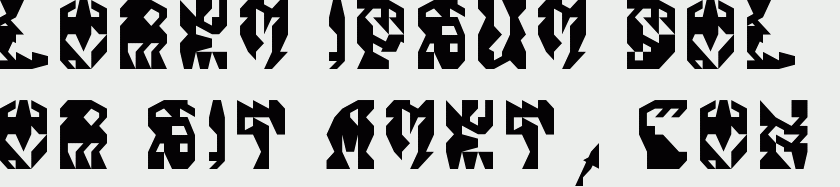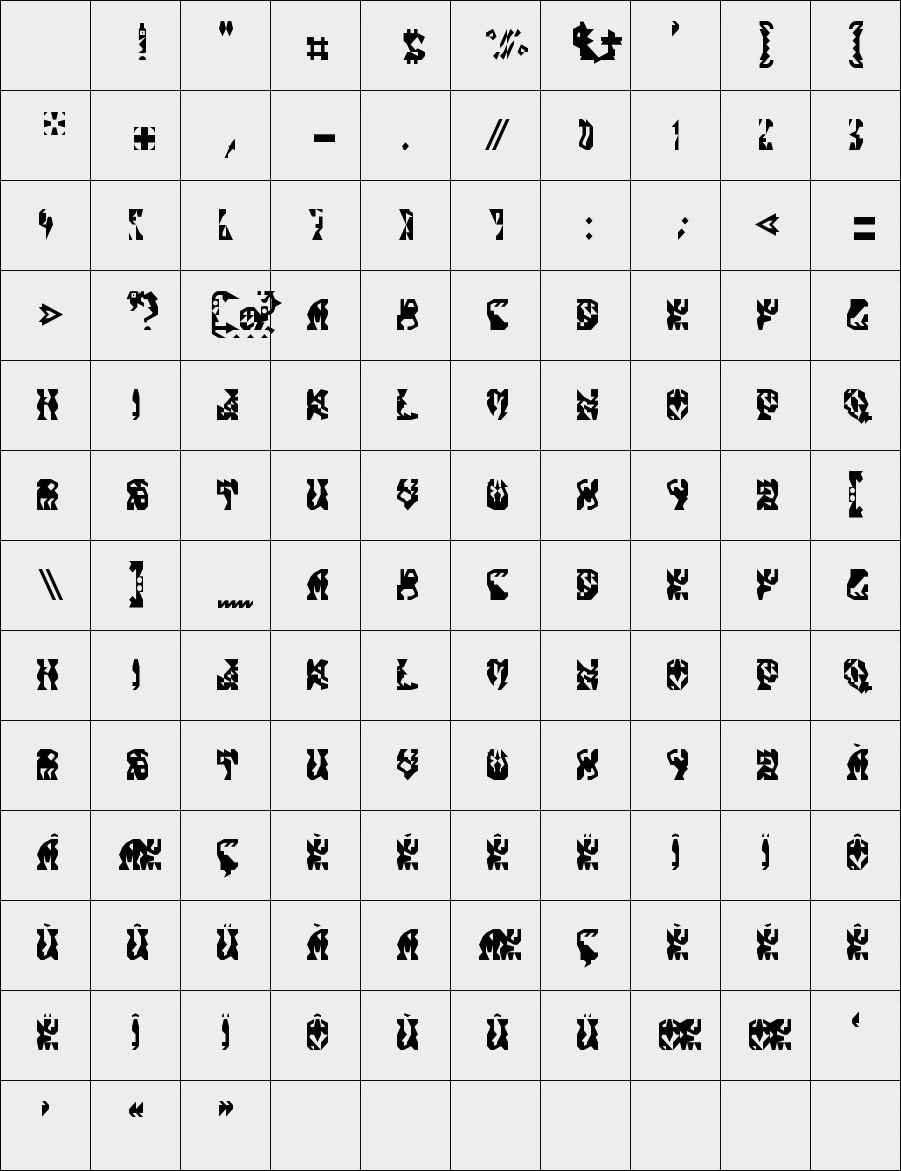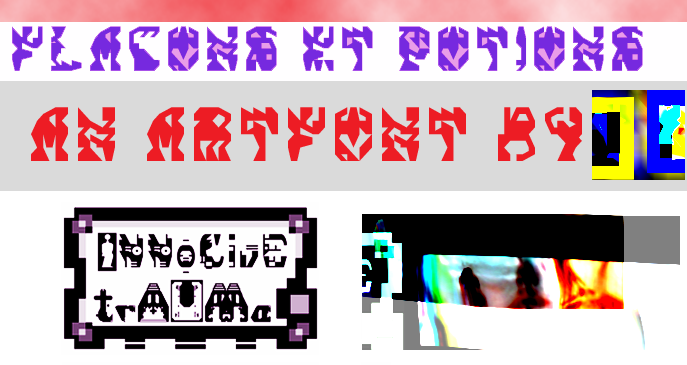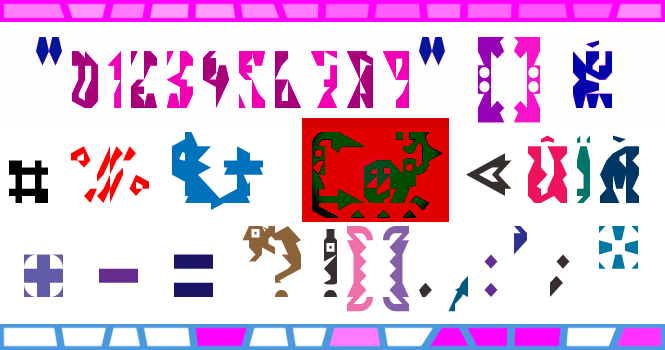
trAUMa 84 / Flacons Et Potions
"Flacons Et Potions", like all the "trAUMa" series, works at the frontier between Art & Type Design, Figuration & Abstraction, each font is a comprehensive world in which every glyph is a "living" entity. But put together they can produce your messages in the most accurate way.